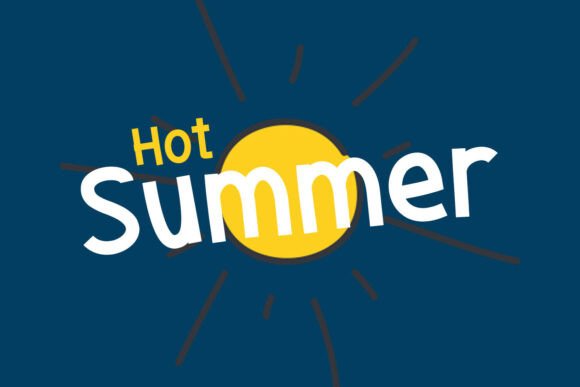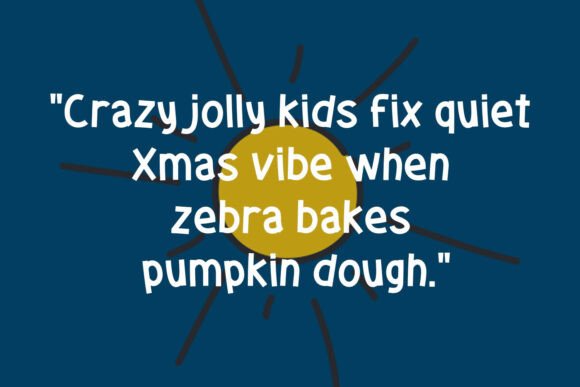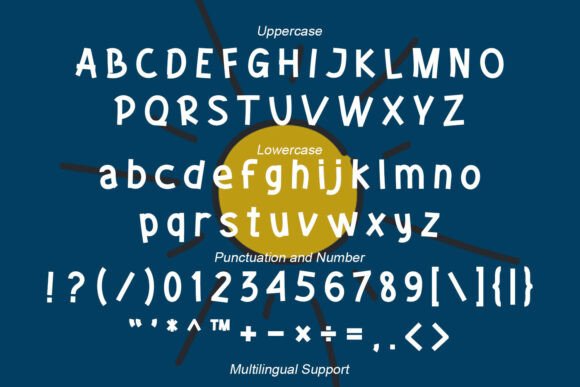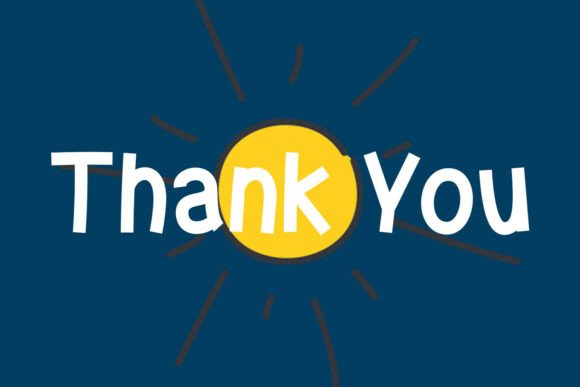
Introduction to Maipond Font
Have you ever been brainstorming ideas for a creative project and suddenly, the perfect font pops into your mind, instantly elevating the entire concept? That’s exactly what happens when designers come across the Maipond Font. This playful handwritten font is designed by Fernande and has been making waves in the design community with its dynamic, slanted, and slightly irregular letterforms.
What sets Maipond apart is its ability to capture the essence of spontaneous handwriting, making it perfect for a wide range of creative needs. From children’s designs and event posters to fun product branding, greeting cards, and social media content, Maipond Font brings a warm and joyful vibe that effortlessly grabs visual attention. With its high-quality design and transparent background, it’s no wonder designers are flocking to this design resource for their next project.
Key Features of Maipond Font
- Unique, modern design with a transparent background, allowing for versatile use in various design applications.
- Maipond Font is available in a single font size, but its high resolution (up to 300 DPI) ensures crisp and clear display on various screens.
- Perfect for designers and artists looking for a modern, sleek font to enhance their creative projects, with a free download option for convenience.
- Maipond Font is a great addition to any design resource library, offering a unique and high-quality design element for various creative applications.
Honest Review: Maipond Font
As a designer, I’m always on the lookout for high-quality design resources that can elevate my creative projects. The Maipond Font is one such find that has caught my attention recently.
- ✨ The font is incredibly versatile and can be used for a wide range of creative projects, from logos to typography-based art.
- ✨ The font has a transparent background, which makes it easy to use with different color schemes and backgrounds.
- ⚠️ The font may not be as polished as some other commercial fonts, and it can look a bit rough around the edges at certain sizes.
- ⚠️ The font is not as comprehensive as some other font families, with a limited number of styles and weights available.
Overall, I think the Maipond Font is a great addition to any designer’s toolkit, and it’s definitely worth checking out for free download. While it may have its limitations, it’s a high-quality design resource that can add a lot of creativity to your projects.
Tips for Getting the Most Out of Maipond Font
To get the most out of Maipond Font, experiment with different font sizes, colors, and styles. You can also use the font in combination with other design elements to create a unique and eye-catching design.
Maipond Font is a versatile design resource that can be used in a variety of creative projects. Some common use cases include:
- Creating a logo or branding identity
- Designing a website or mobile app
- Creating a presentation or document
- Adding text to an image or graphic